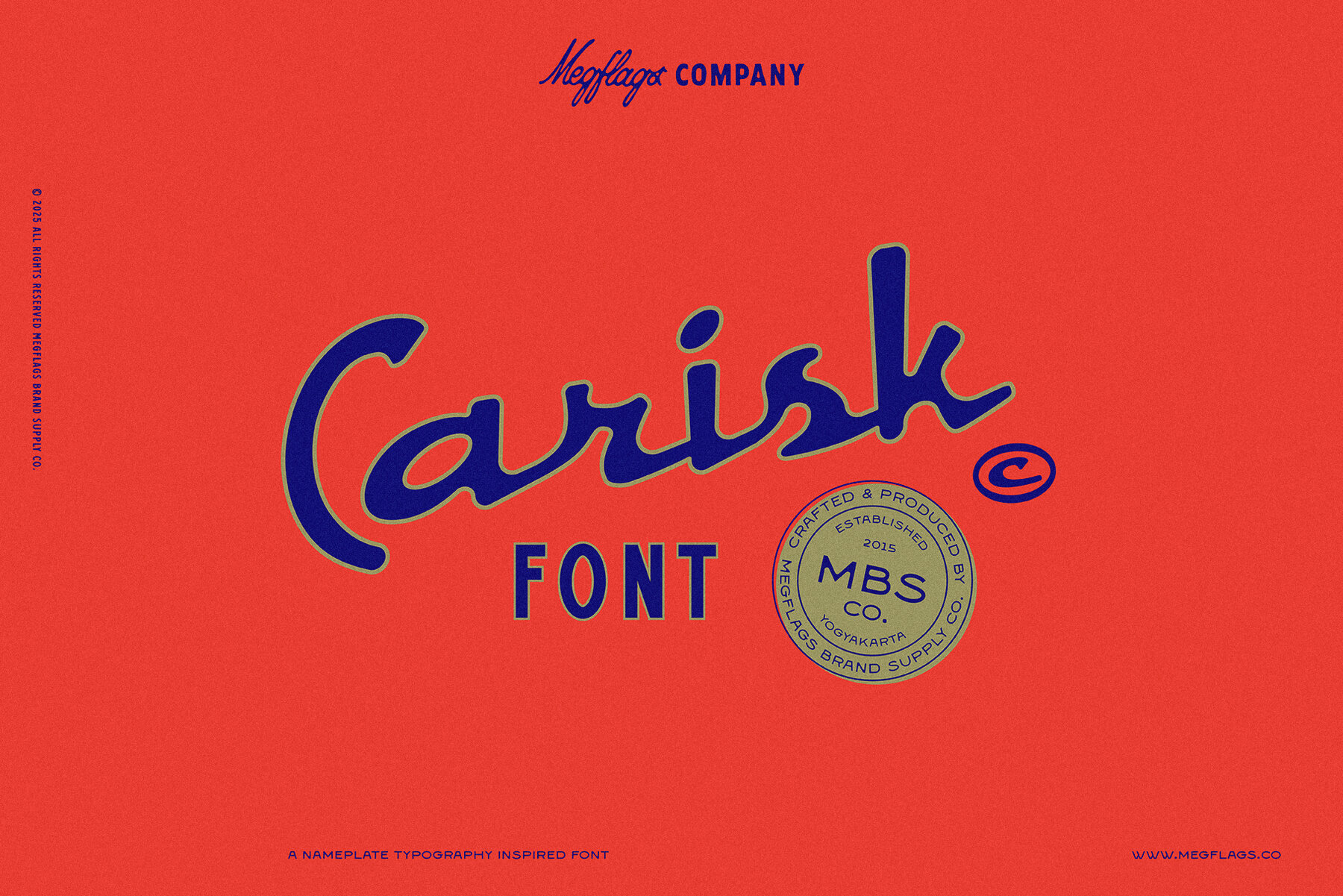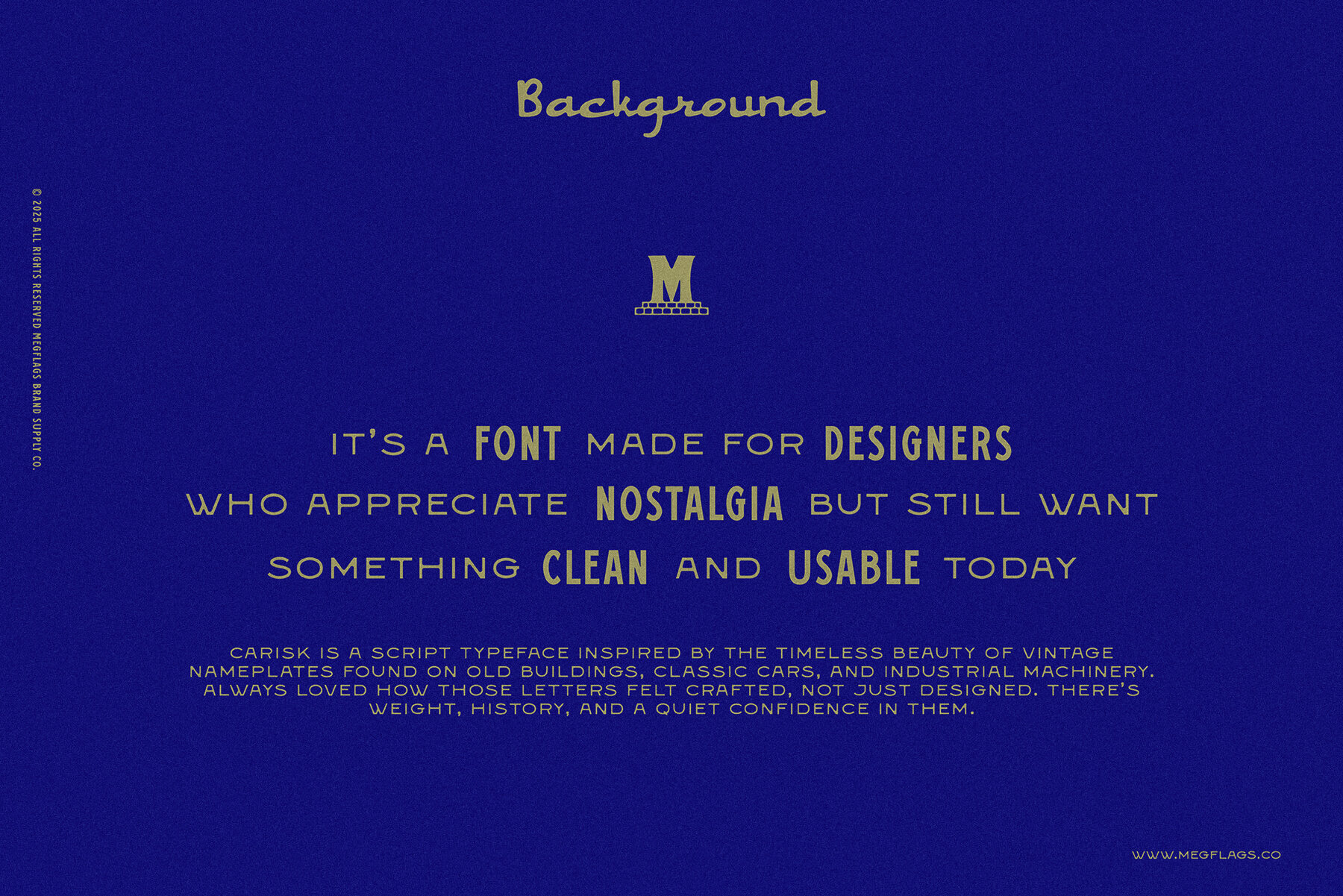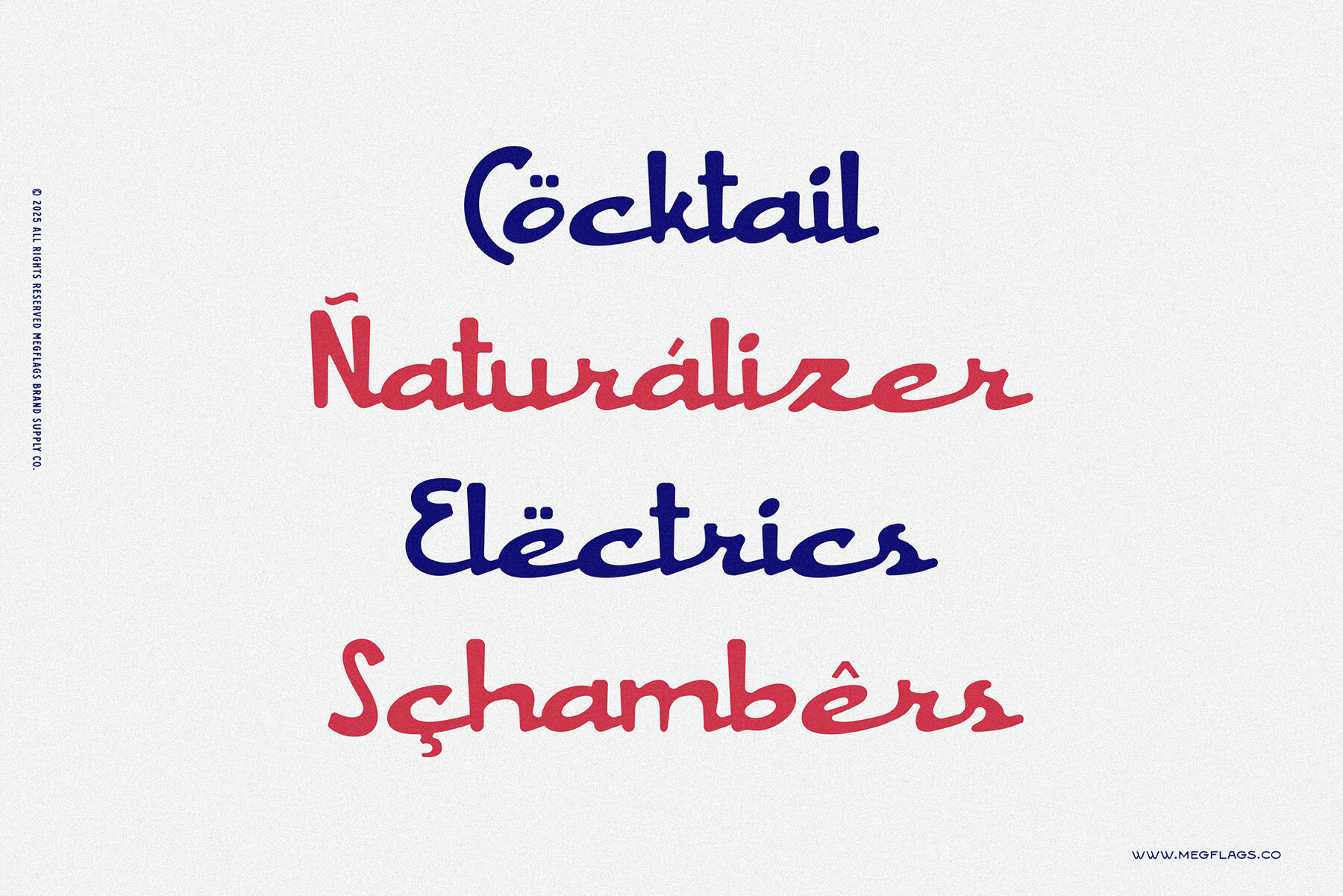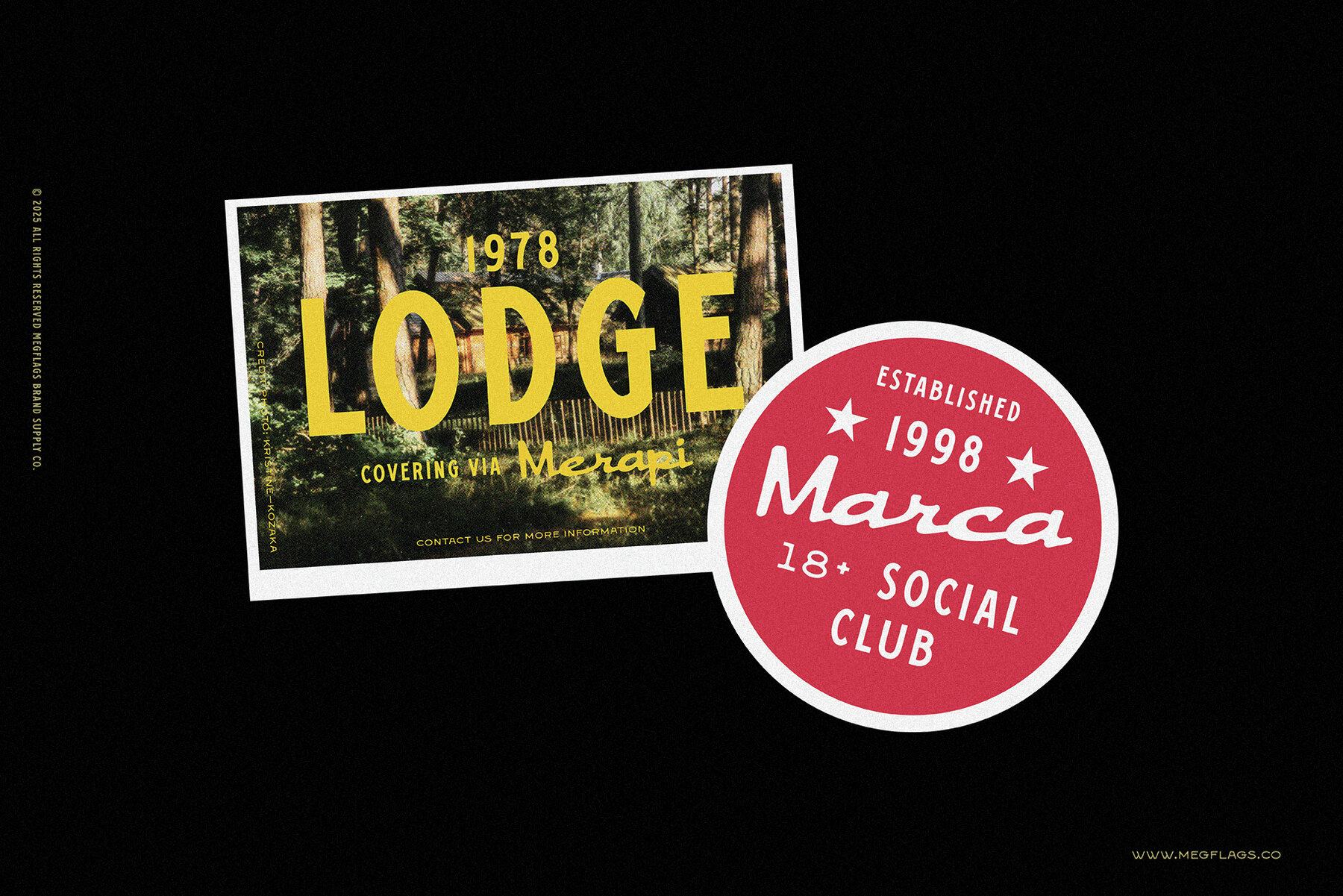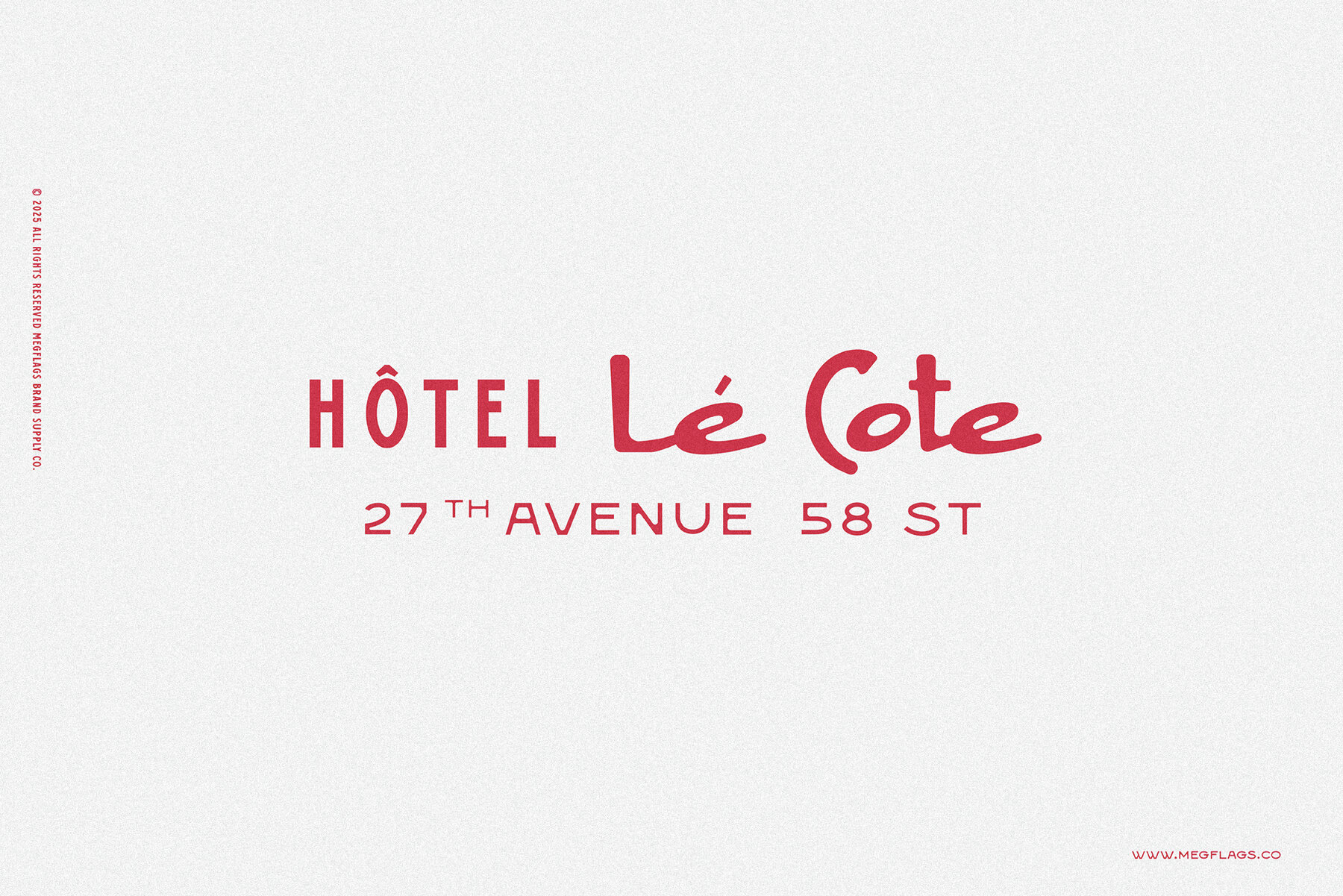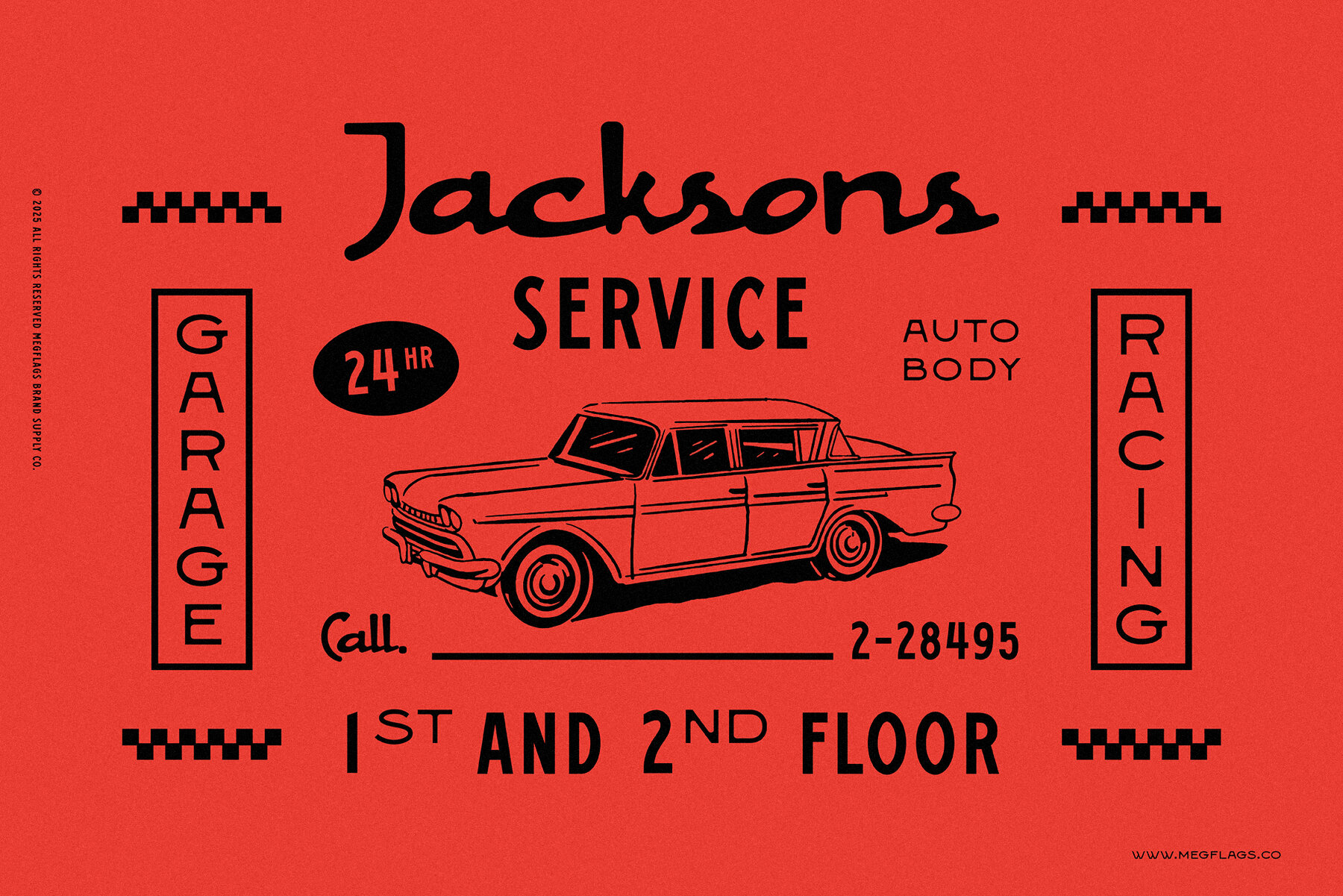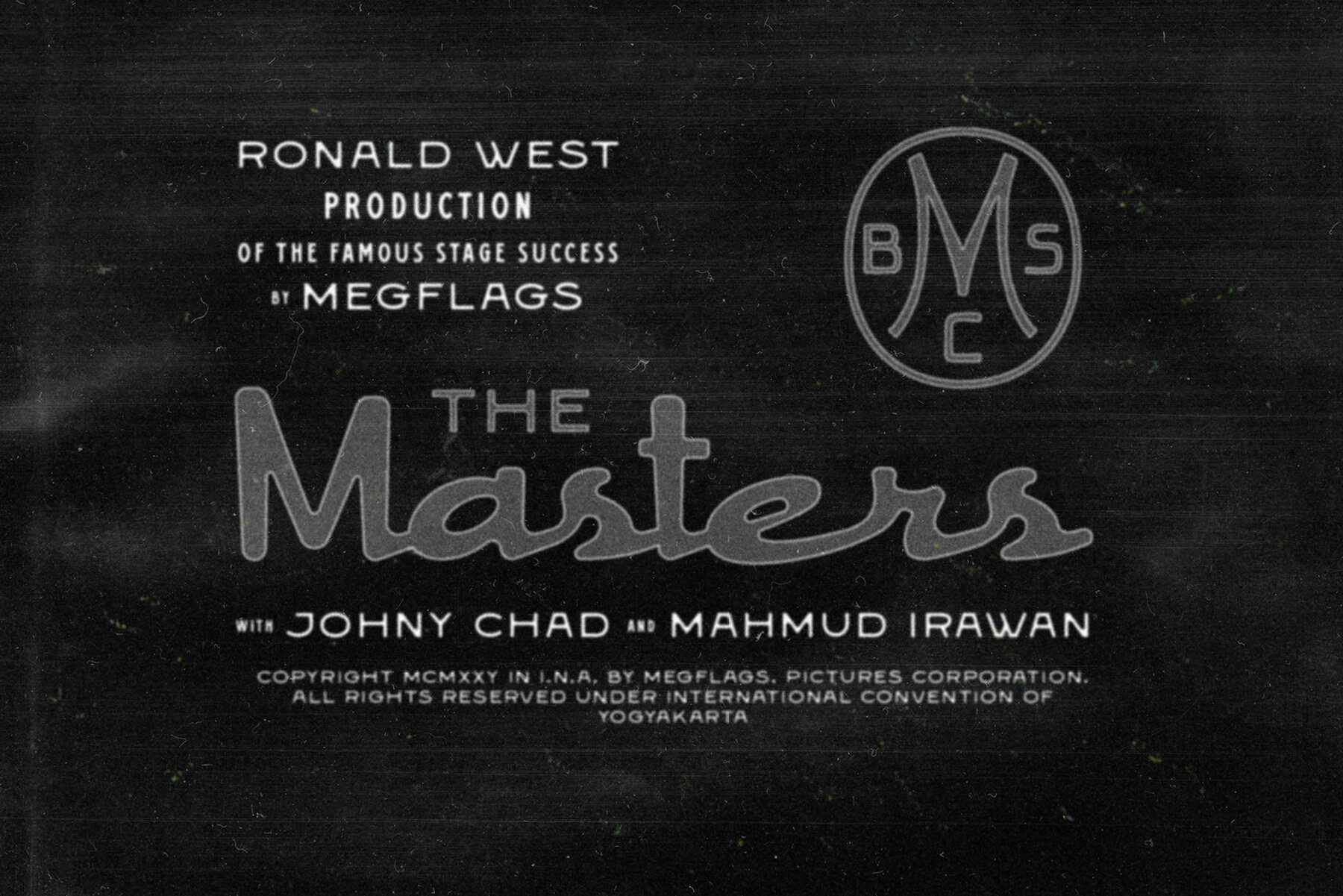
Carisk Font
Carisk Script
Carisk draws on the enduring appeal of vintage nameplates, reminiscent of old architecture, classic cars, and industrial machinery. This display typeface speaks to those who appreciate the unmistakable character of metal-cast lettering, yet seek clarity and functionality for contemporary projects. Designed for creators who balance nostalgia with present-day needs, Carisk stands out in branding, signage, editorial headlines, and packaging. Its robust details evoke a sense of history, while maintaining precise lines for modern readability.Carisk: Vintage Display Typeface with Industrial Influence